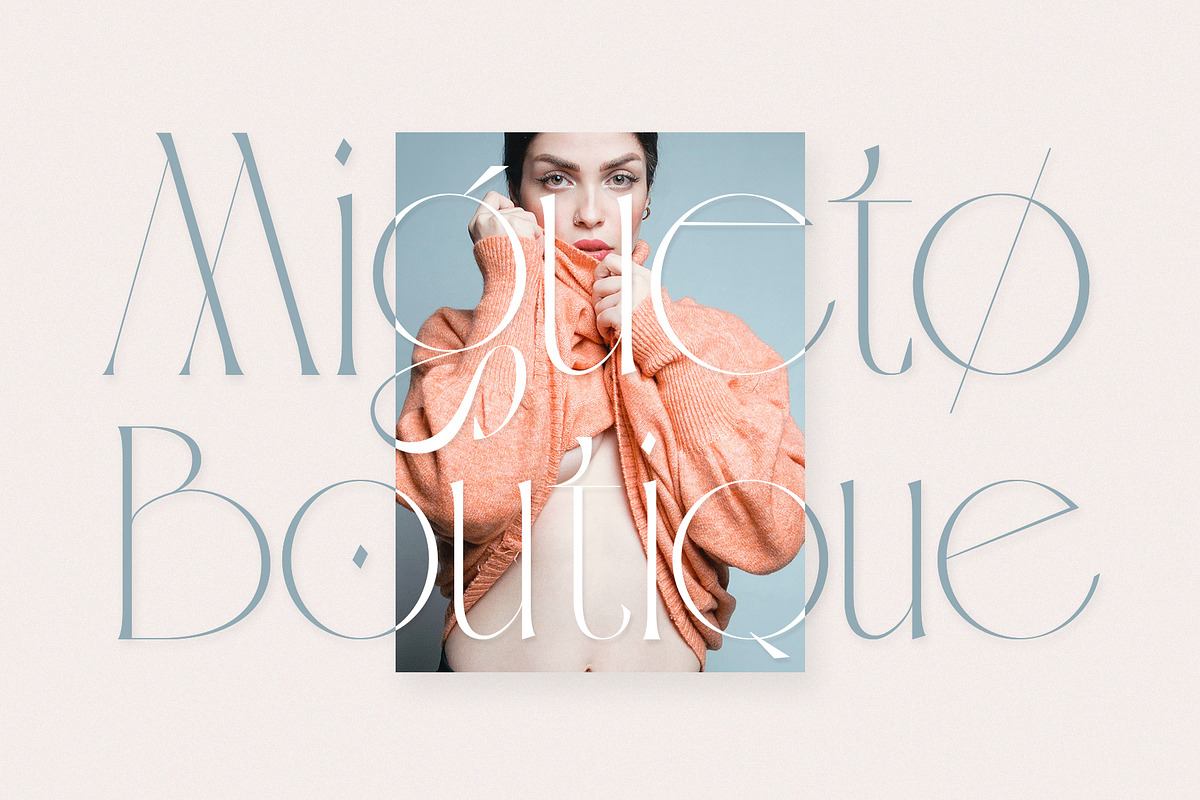
Avole | Serif Typeface Free Download
Avole | Serif Typeface Free Download is a refined and modern serif font that exudes elegance and confidence. With its high contrast strokes, sharp details, and timeless design, Avole is ideal for upscale branding, editorial layouts, fashion campaigns, and anything that deserves a touch of class. It’s the kind of typeface that immediately elevates a project’s visual appeal.
The beauty of Avole | Serif Typeface Free Download lies in its versatility—it feels right at home on a luxury brand’s logo as much as it does in a minimalist magazine spread. Every curve and serif is thoughtfully crafted to create a harmonious flow, ensuring both readability and style. If you’re looking to make a bold yet tasteful impression, Avole is a perfect choice.